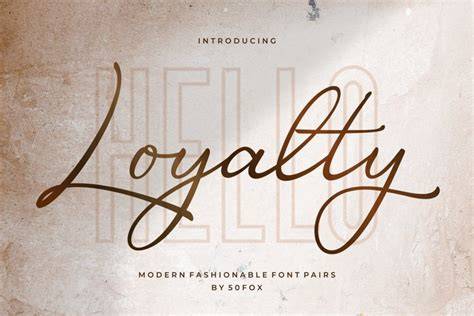
The Benefits Of Using Loyalty Fonts In 2023
As we enter 2023, businesses and organizations are increasingly relying on loyalty fonts to express their brand and increase customer engagement. A loyalty font is a type of font that has been customized to reflect the unique characteristics of a company. It is designed to create a visual representation of the company’s brand, making it easier for customers to identify and connect with the company.
What Are the Benefits of Using a Loyalty Font?
Using a loyalty font offers a number of benefits for businesses. First and foremost, it allows your company to stand out from the competition. A loyalty font is designed to be unique and to express the company’s brand identity in a way that resonates with customers. It also helps to create an emotional connection with customers, as they are more likely to remember and respond to a font that is familiar and associated with a particular brand.
A loyalty font also helps to create a sense of trust and reliability. Customers are more likely to trust a company that takes the time to invest in a unique font that expresses their brand identity. It also helps to create a sense of consistency, as customers will be more likely to recognize the company’s brand when they see the same font used across different mediums.
What Are the Different Types of Loyalty Fonts?
When it comes to loyalty fonts, there are a variety of options available. There are classic fonts, such as serif and sans-serif fonts, that have been used for decades and remain popular today. There are also modern fonts, such as script and display fonts, that have become increasingly popular in recent years. Additionally, there are custom fonts that are designed specifically for a company or organization, allowing them to express their brand identity in a unique and visually appealing way.
How Do I Choose the Right Loyalty Font?
When choosing a loyalty font, it’s important to consider the type of font that best reflects your brand. For example, if your brand is modern and hip, you might want to choose a modern font. On the other hand, if your brand is more traditional, a classic font might be a better choice. Additionally, it’s important to consider the size and style of the font. For example, if you are using the font on a website, you might want to choose a font that is easy to read and not too large or small.
Finally, it’s important to consider how the font looks when used in different contexts. For example, if you are using the font on a website, you’ll want to make sure it looks good on both desktop and mobile devices. Additionally, you’ll want to make sure the font looks good when printed on various materials, such as business cards, brochures, and posters.
Using a loyalty font is a great way to express your brand and create an emotional connection with customers. With the right font, you can create a visual representation of your brand that resonates with customers and helps to create a sense of trust and reliability.